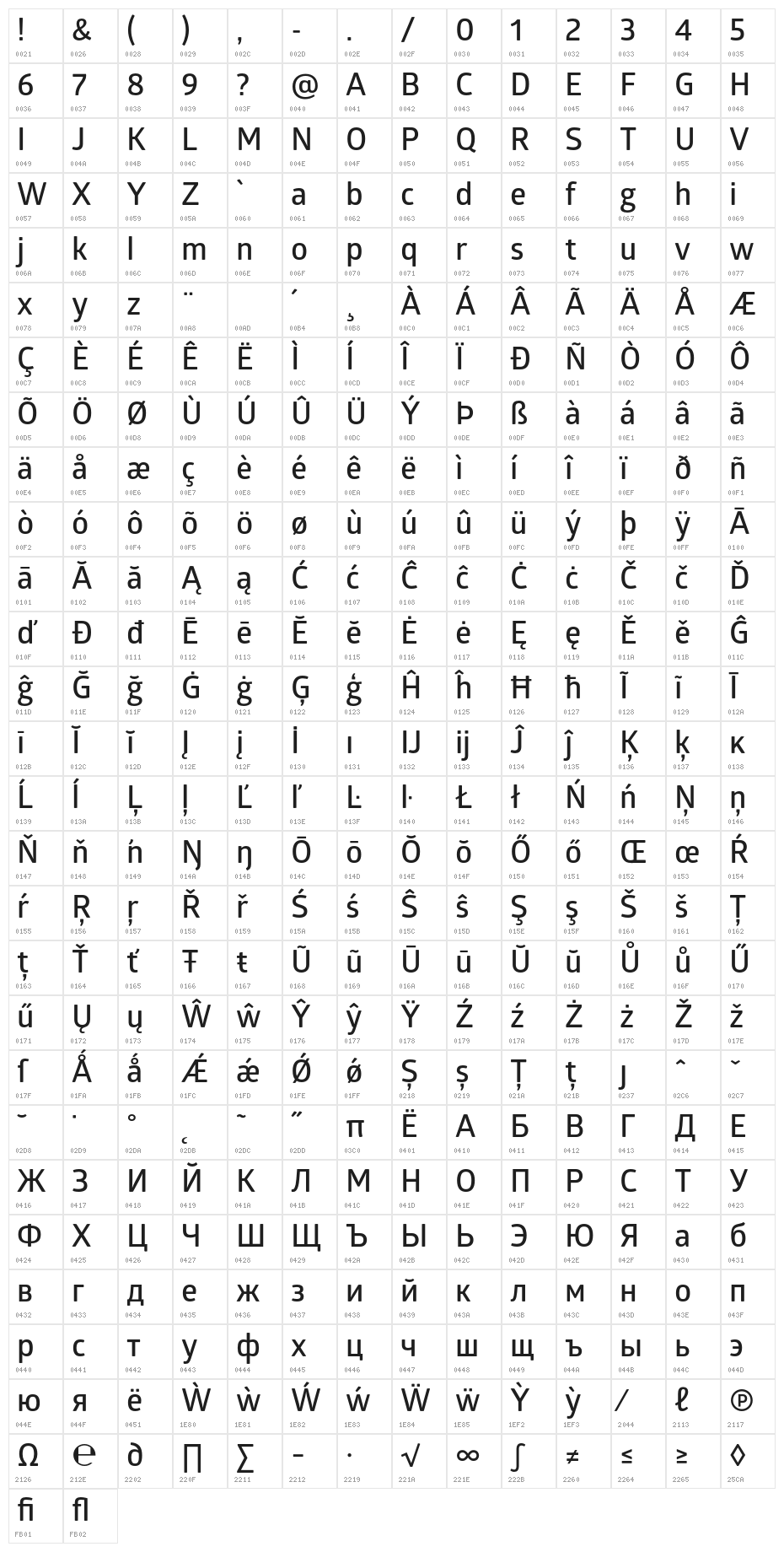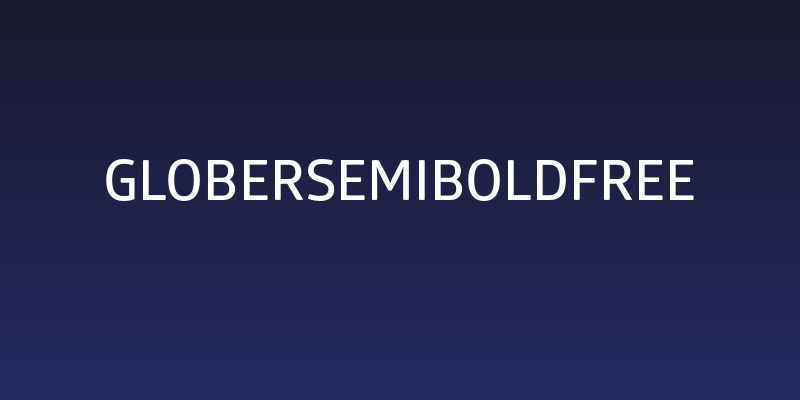
GloberSemiBoldFree Font
GloberSemiBoldFree Description
This font features a clean and modern sans-serif design with a semi-bold weight, providing a strong yet approachable appearance. The characters are well-proportioned with a consistent stroke width, offering excellent readability. The uppercase letters are slightly taller than the lowercase, giving a balanced and structured look. The numerals are clear and distinct, making them suitable for various applications. The special characters are well-integrated, maintaining the font's overall aesthetic. This font's simplicity and clarity make it versatile for both digital and print media.